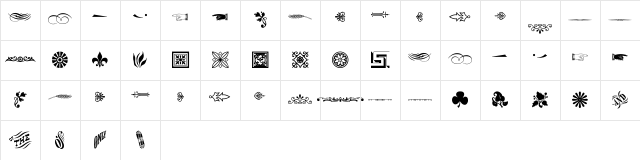
Complete AdobeWoodTypeOrnamentsTwo Roman glyph index. Displaying only characters natively supported by AdobeWoodTypeOrnamentsTwo Roman font.
AdobeWoodTypeOrnamentsTwo echoes the hand-painted signage and woodblock typography of the American frontier, with a warm, rugged personality.
Font Pairing: Combine AdobeWoodTypeOrnamentsTwo with a simple slab or neutral sans - period-accurate companions reinforce the vintage feel without competing for attention.
Pro Tip: Use AdobeWoodTypeOrnamentsTwo for short, impactful bursts of text - it shines in poster headlines and product names rather than extended copy.